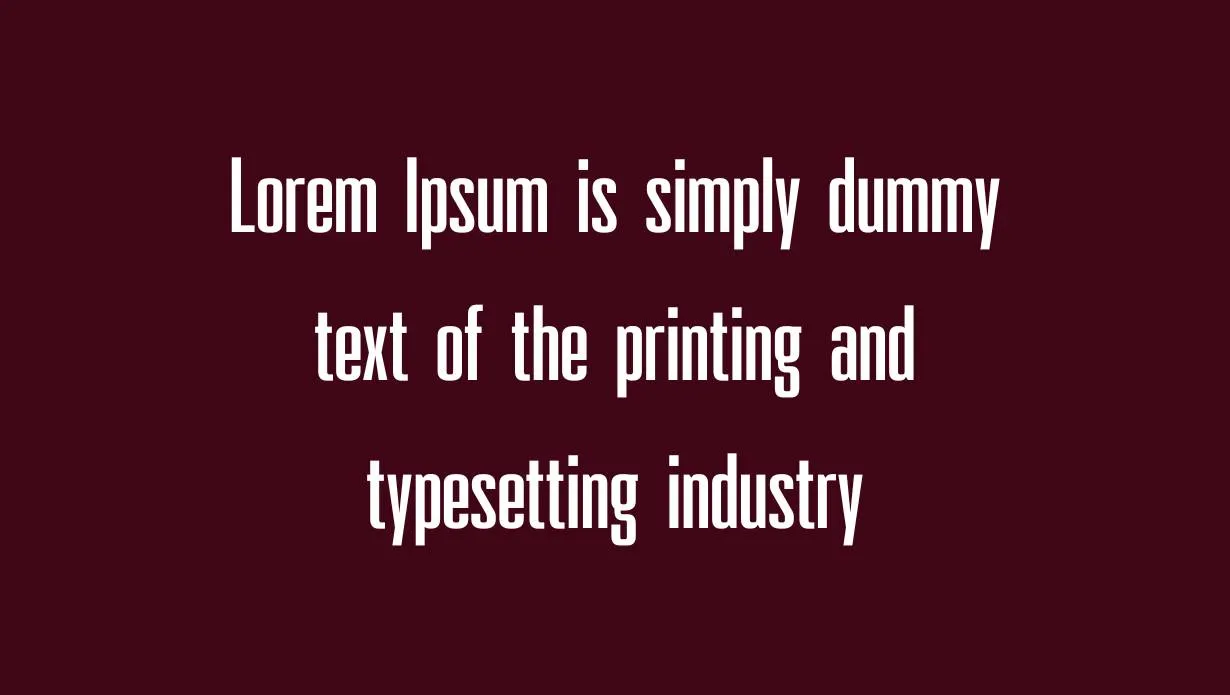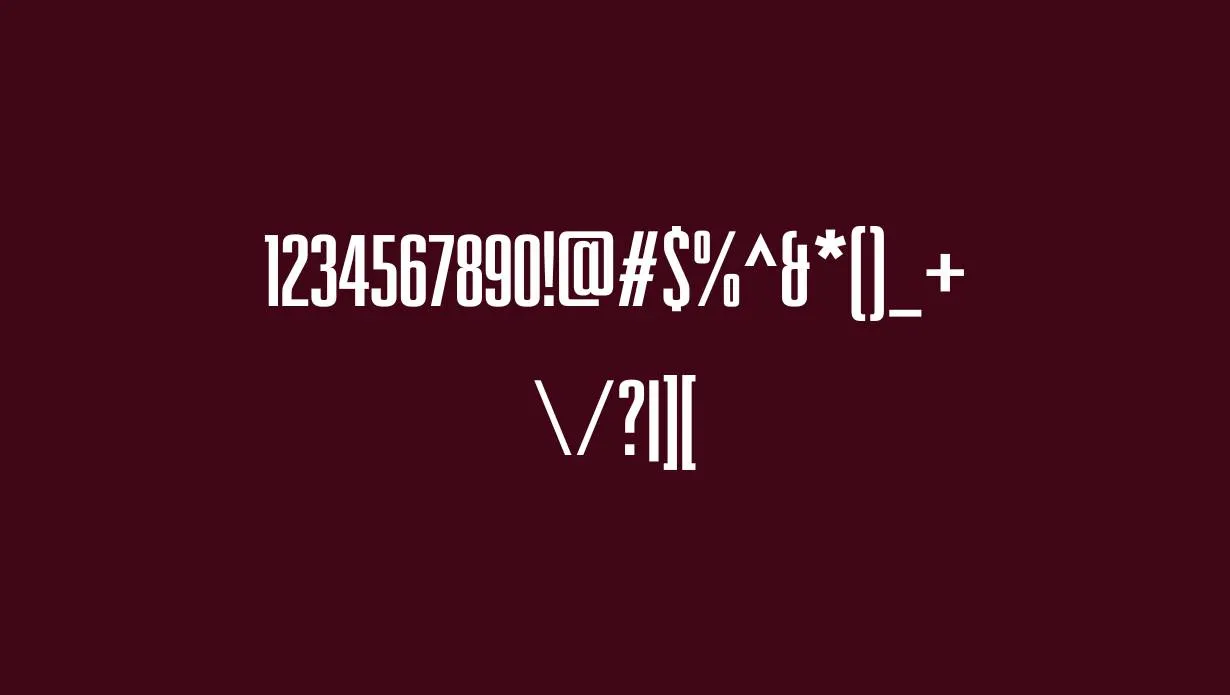
Presenting Kizo Font, a condensed geometric Sans-Serif typeface that was made by Mariya V. Pigoulevskaya in 2013. This typeface is inspired by the city’s liberal architecture. This typeface is crafted to enhance the legibility of text on print and digital screen displays. It has TTF and OTF formats.
It has 434 characters, currency, and diacritics, and it also supports Basic Latin, Turkish, Central Europe, Baltic, and Cyrillic.